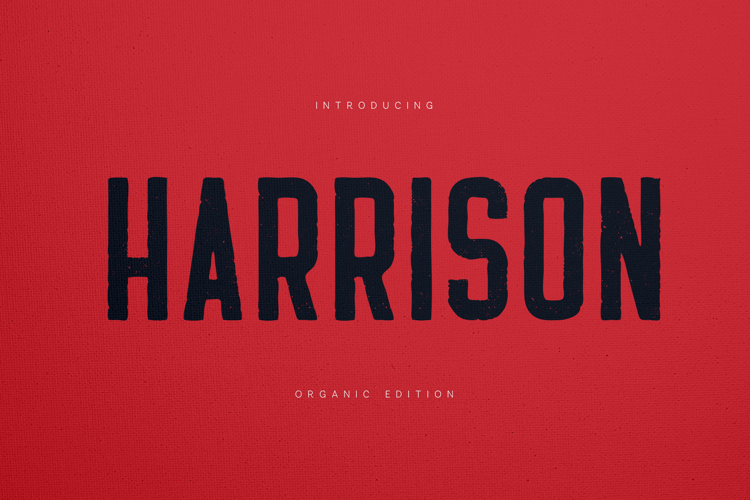
Modern Heritage Minimalist Sans Serif Font
Harrison is a bold organic display font with a strong handcrafted character. Designed with rough edges and a natural texture, it delivers an authentic, human-made feel that works perfectly for powerful headlines, posters, branding, packaging, apparel, editorial layouts, and social media graphics.
This font includes uppercase and lowercase letters, numbers, punctuation, and extended Latin characters, making it suitable for multilingual projects. Harrison is ideal for designers looking to add a raw, confident, and expressive tone to their work.